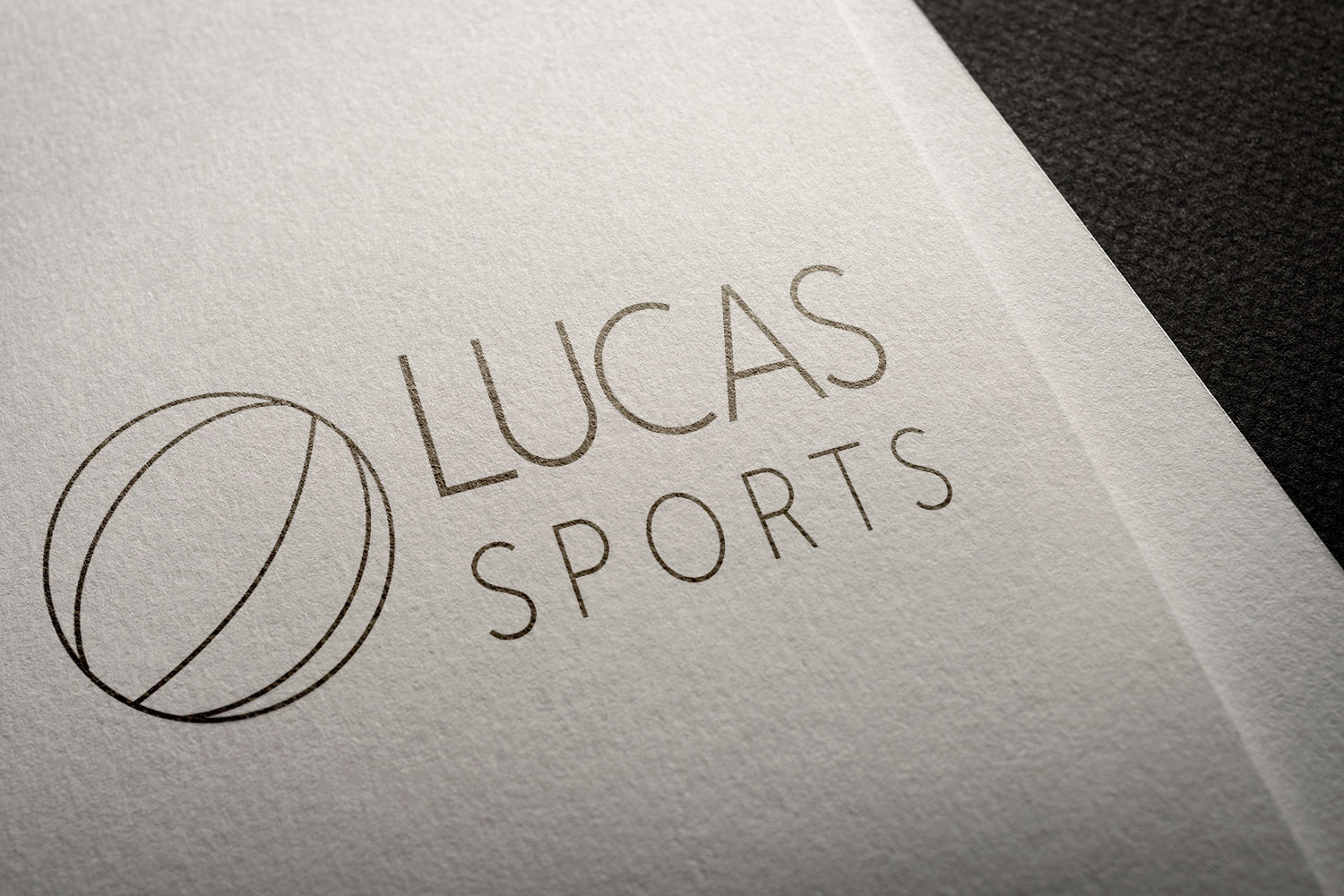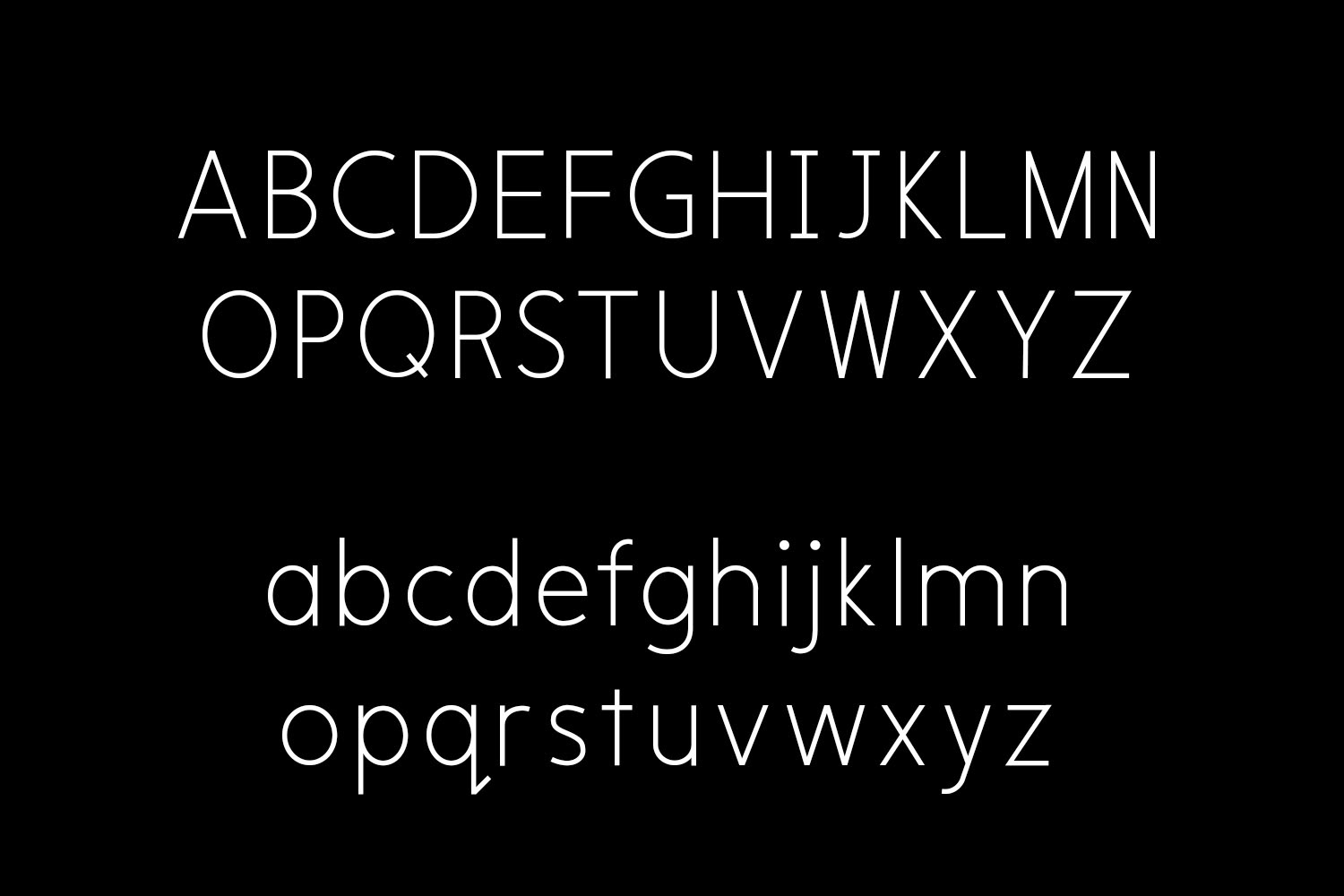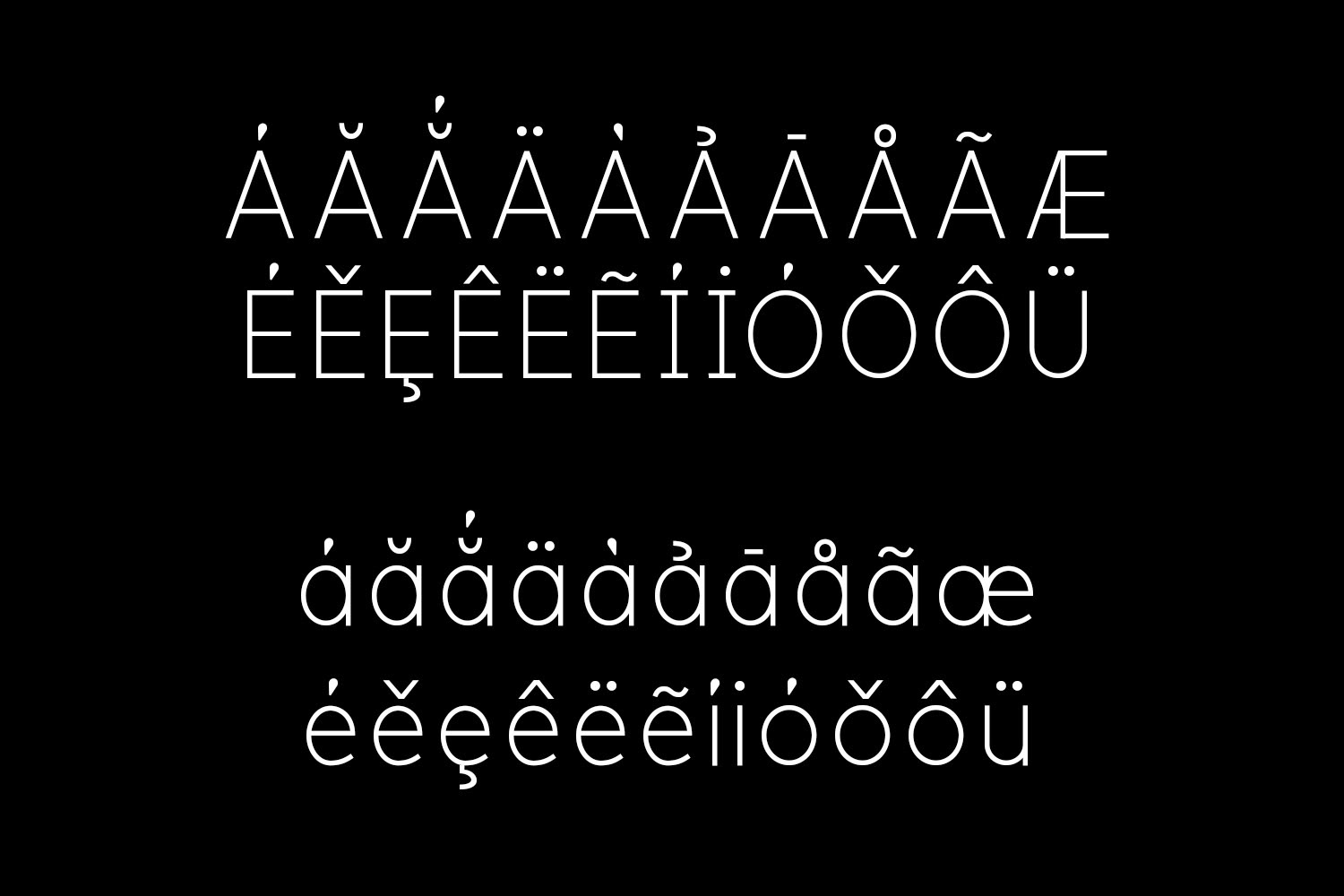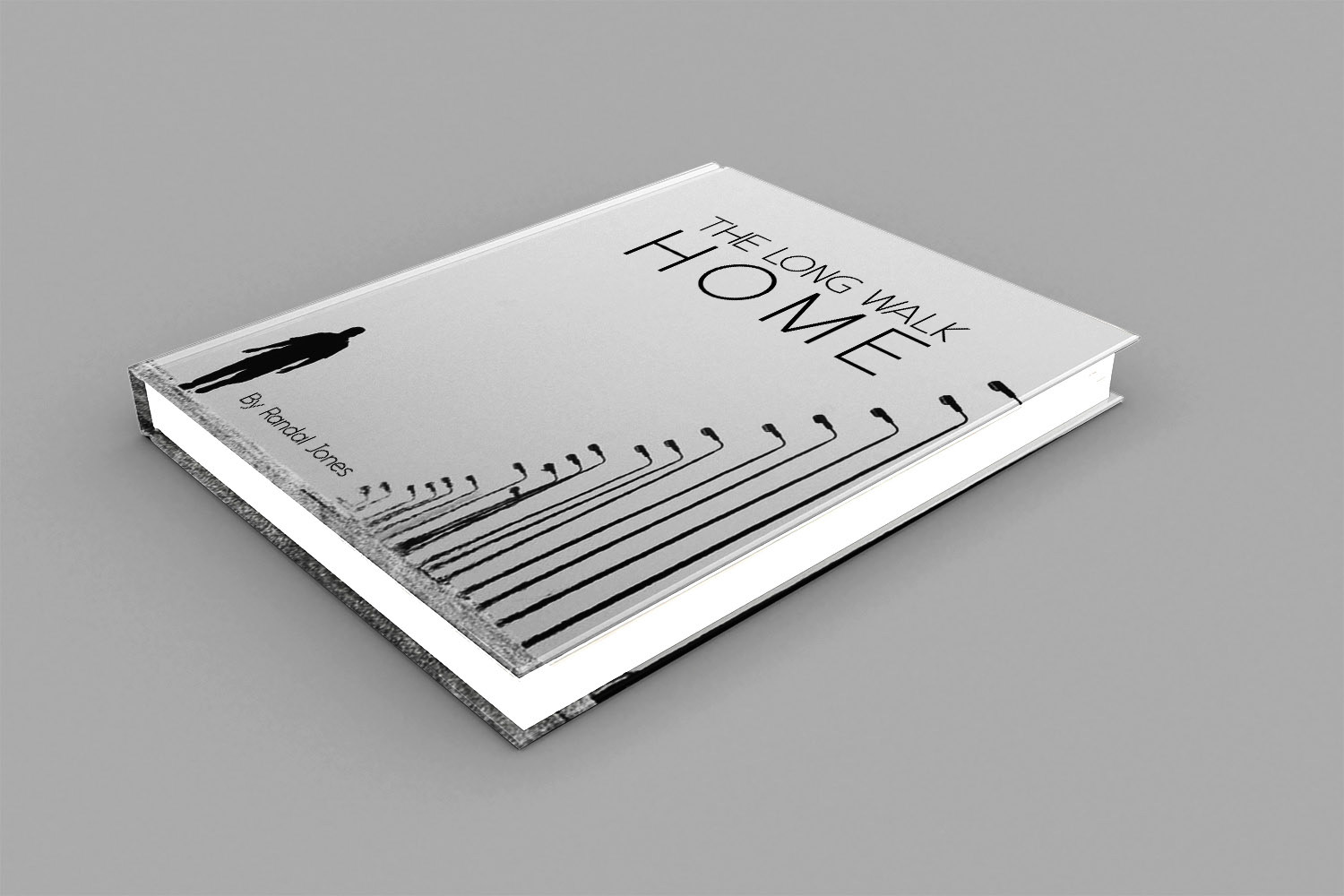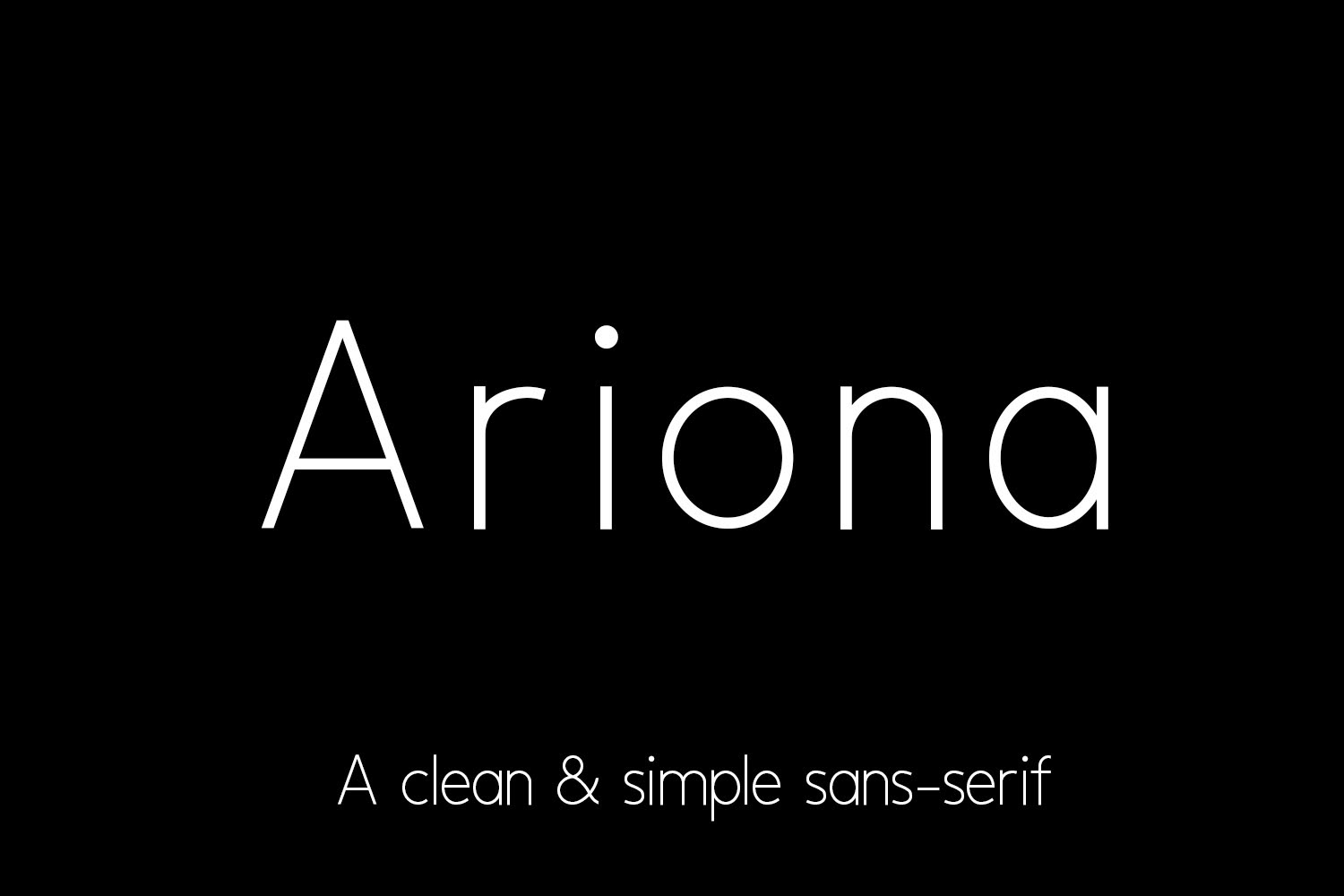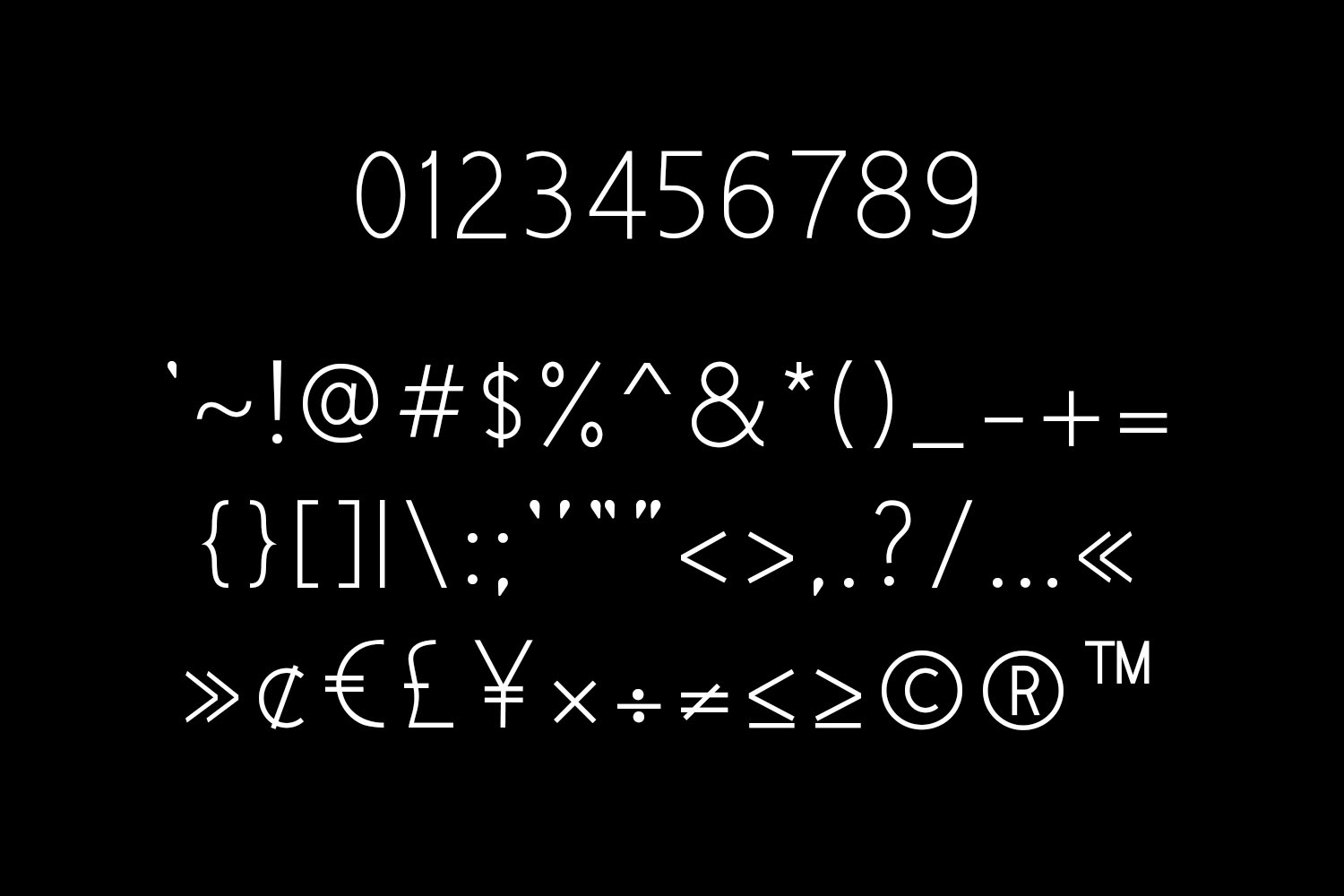
Meet Ariona, a clean and simple sans-serif which is perfect to pair with a beautiful serif.
Ariona looks right at home on a business card, as body text and much more!